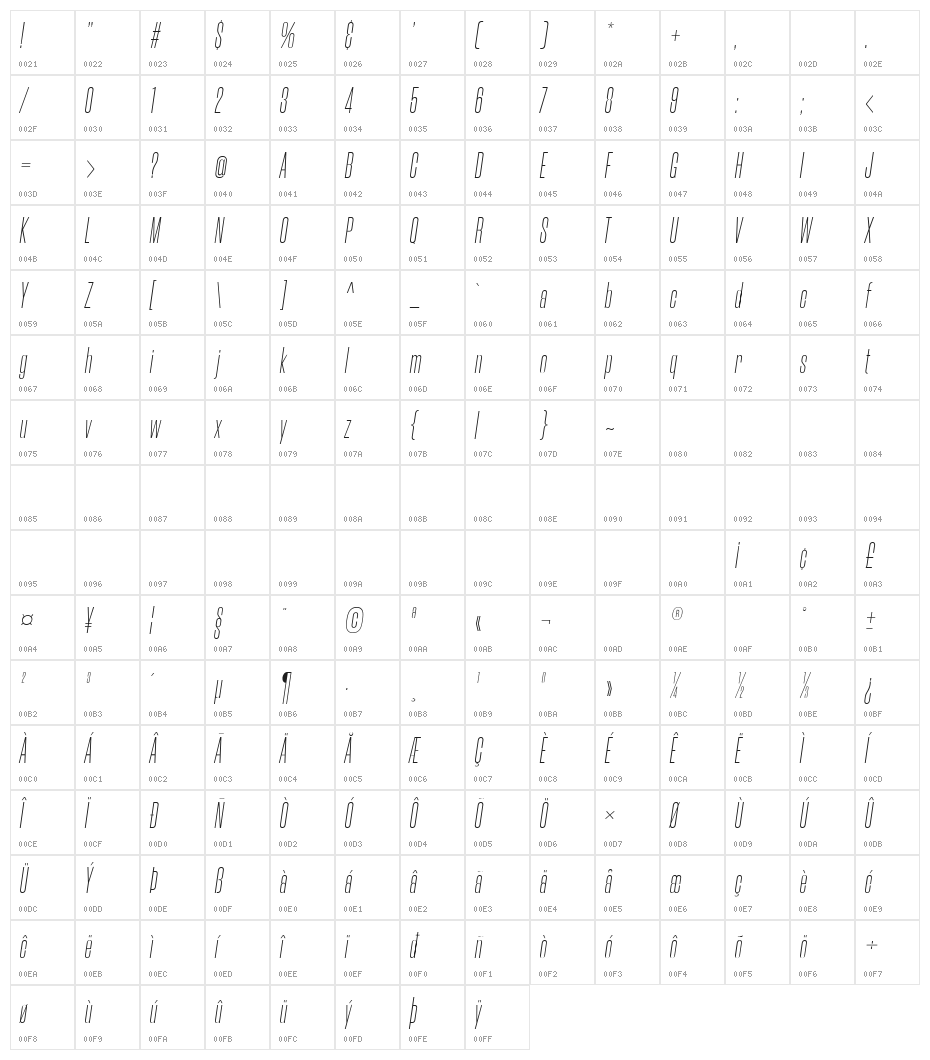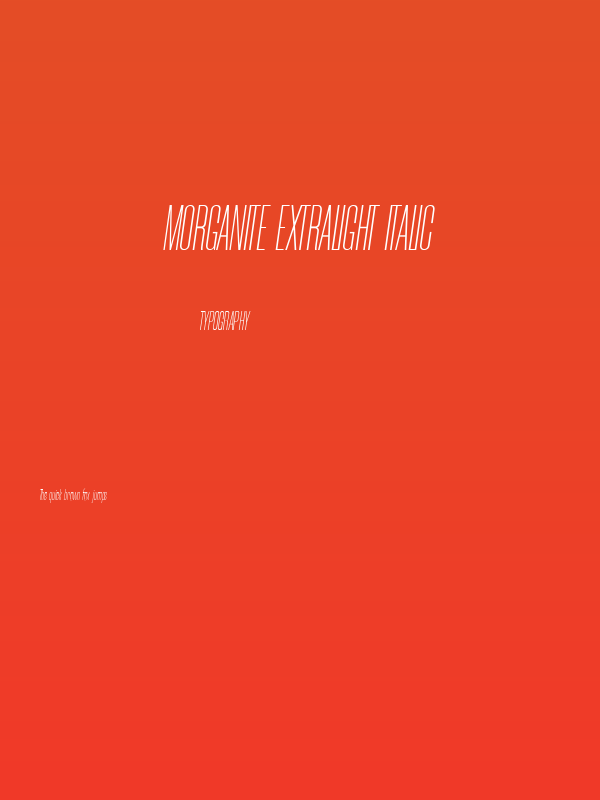
Morganite ExtraLight Italic Font
Morganite ExtraLight Italic Description
This font features an elegant and modern design with a distinctly italicized style. The characters are elongated and narrow, giving it a sleek and sophisticated appearance. The strokes are consistent and smooth, with a light weight that adds to its airy and refined look. The uppercase and lowercase letters maintain a cohesive style, while the numerals and special characters complement the overall aesthetic. This font's clean lines and subtle curves make it versatile for various design applications.
Proposed ProjectsIdeal for fashion magazines, luxury branding, elegant invitations, and modern website headers.